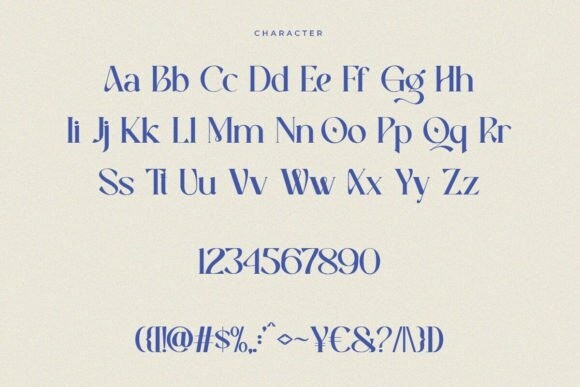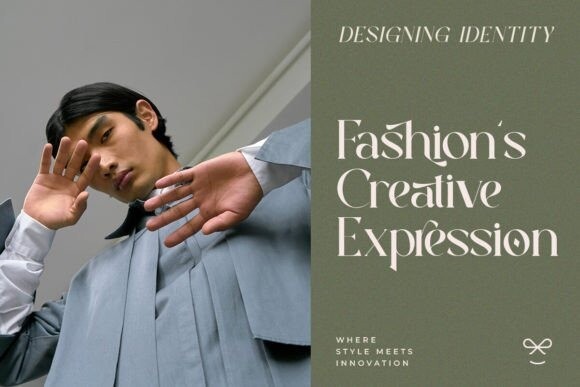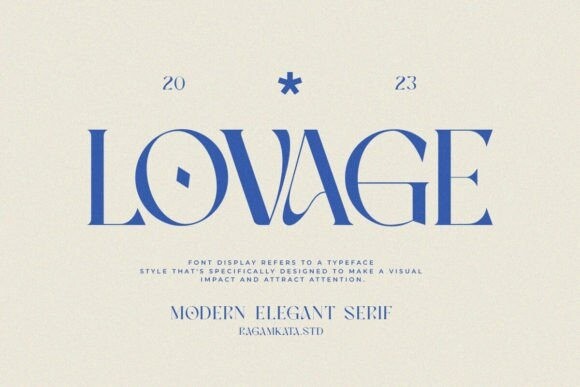
Lovage Serif Font
Lovage Serif Font is an elegant and bold serif font. Fall in love with its incredibly versatile style and use it to create gorgeous wedding invitations, beautiful stationary art, eye-catching social media posts, and much more!
This font is specially designed for fashion-themed projects, perfectly suitable for creating elegant, chic, lifestyle designs such as logos, titles, magazines, and more.